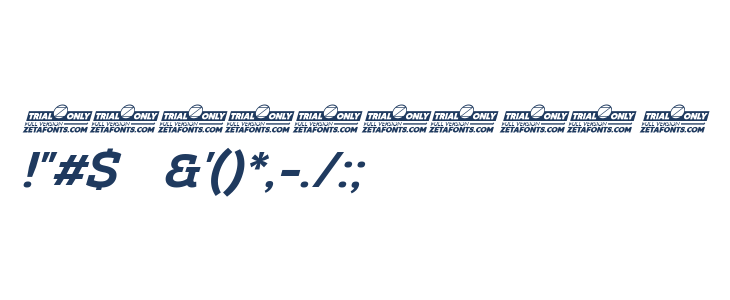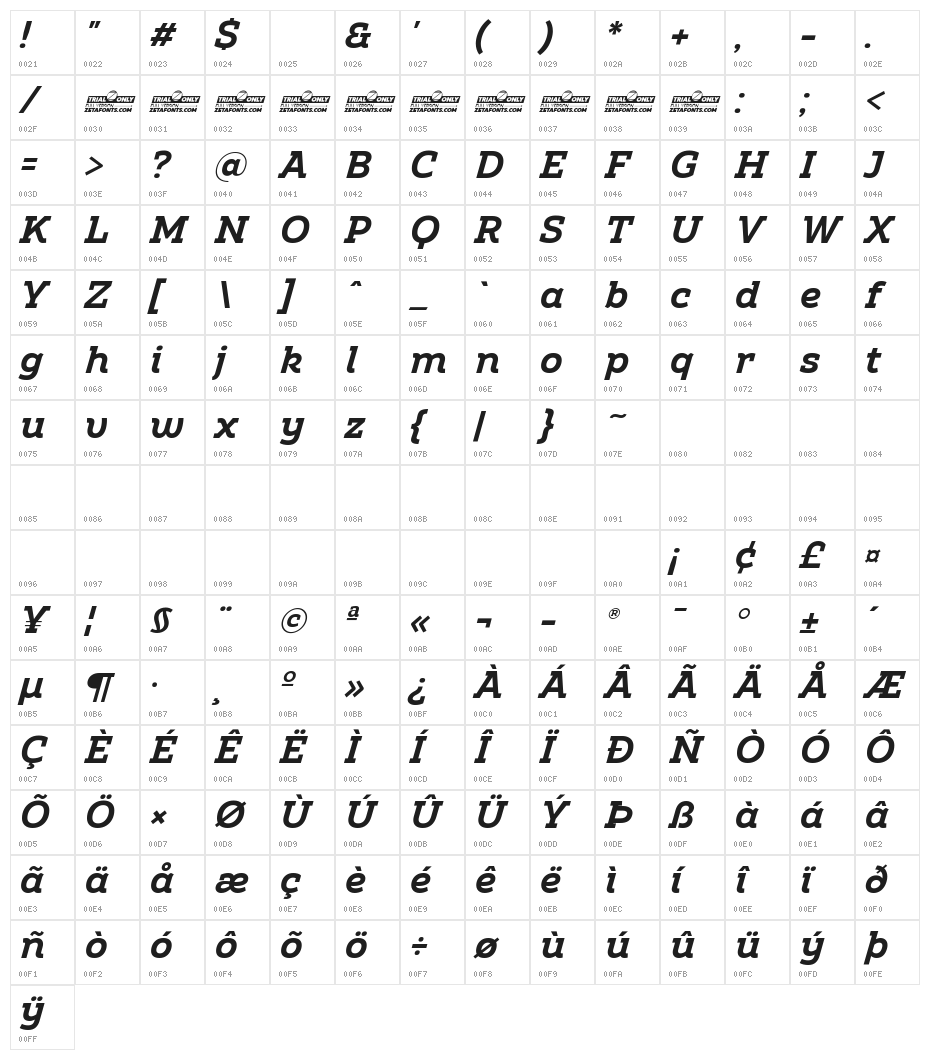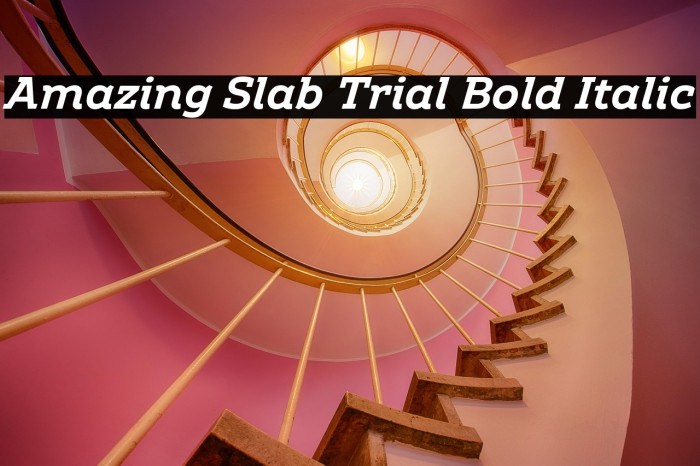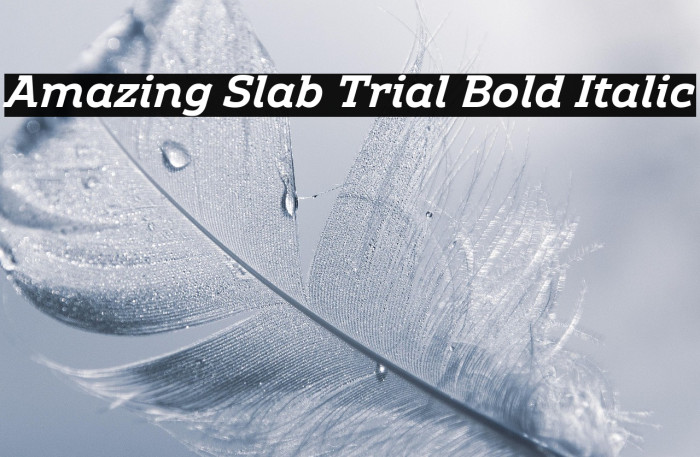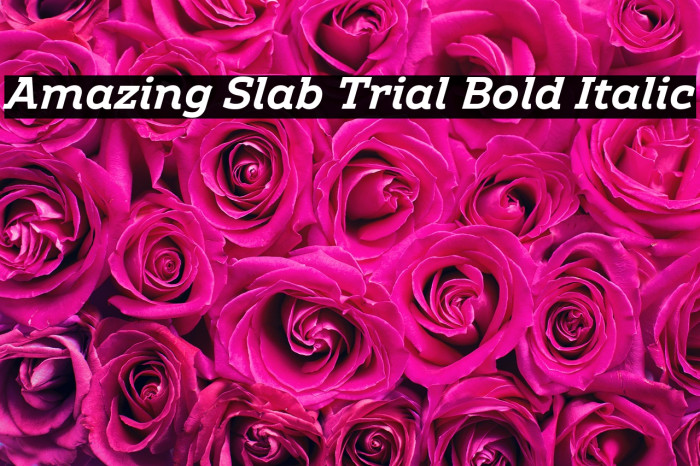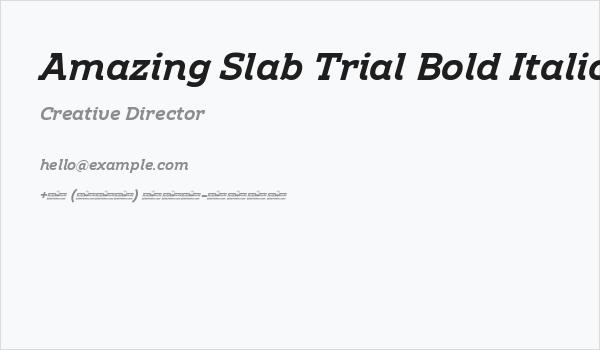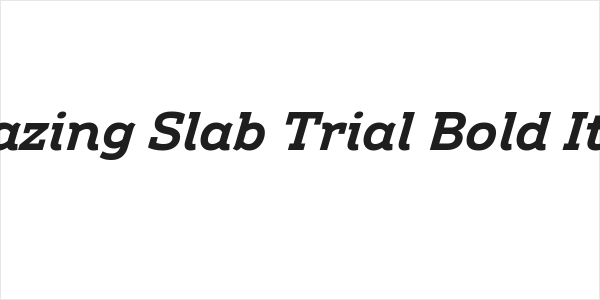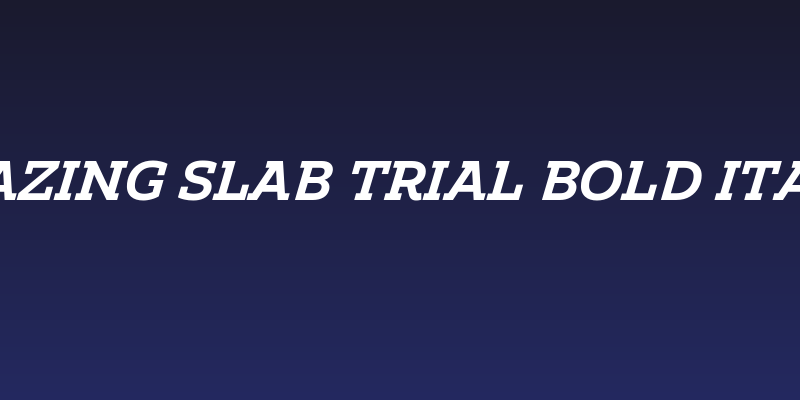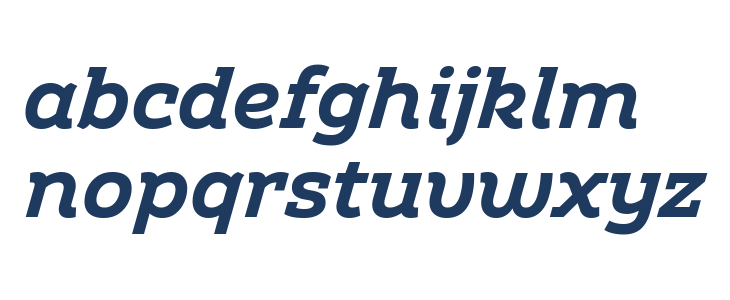
Amazing Slab Trial Bold Italic Font
Amazing Slab Trial Bold Italic Description
This font features a bold and italicized style with a strong slab serif presence. The characters exhibit a robust and confident appearance, with thick strokes and pronounced serifs that add a sense of stability and strength. The italic slant gives it a dynamic and forward-moving feel, making it suitable for impactful and attention-grabbing designs. The font maintains a consistent weight throughout, ensuring readability while adding a touch of elegance. Its design is both modern and classic, making it versatile for various applications.
| Proposed Projects | Ideal for branding, headlines, posters, and editorial design where a bold statement is needed. |